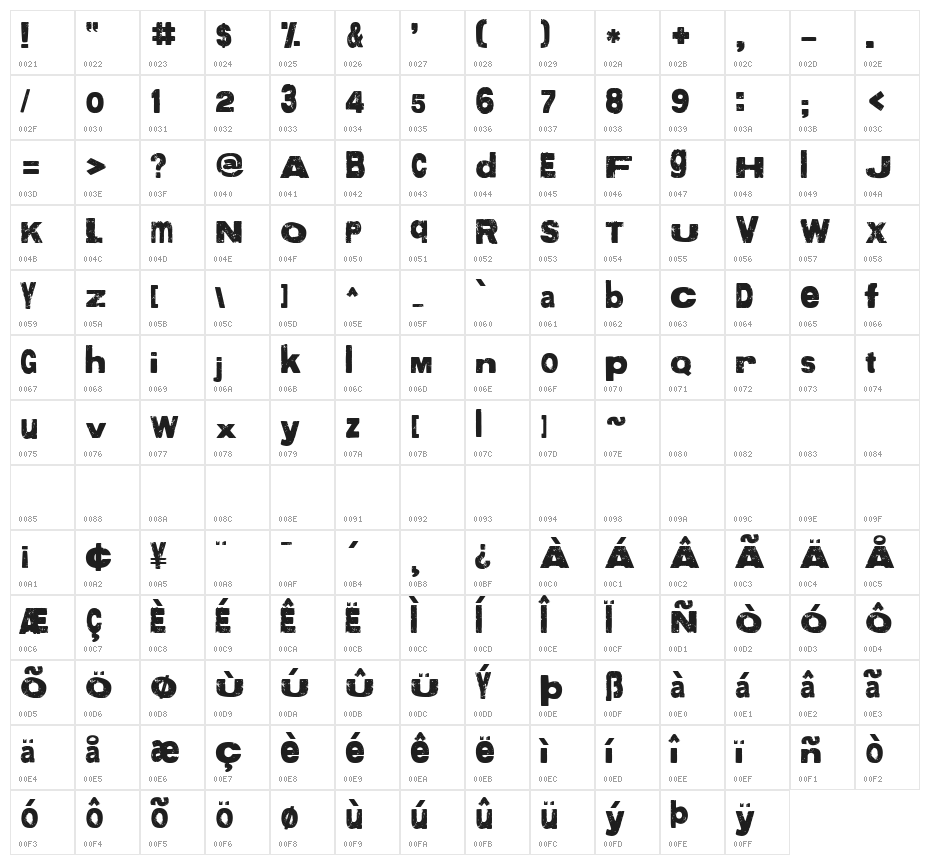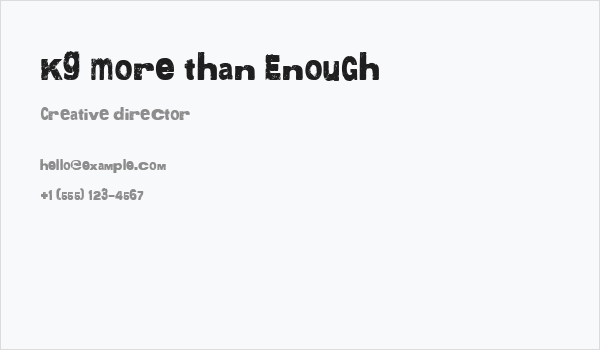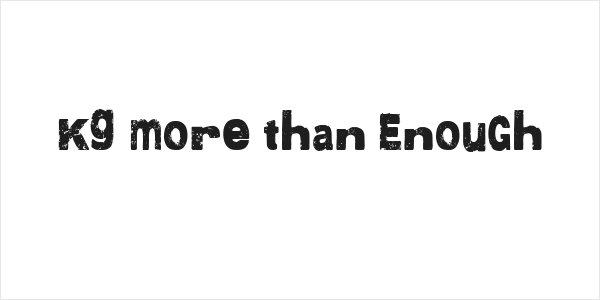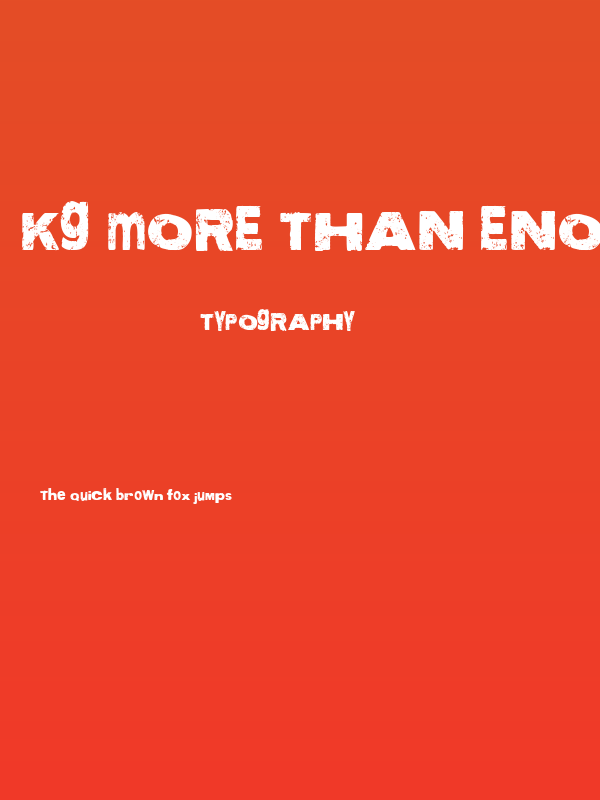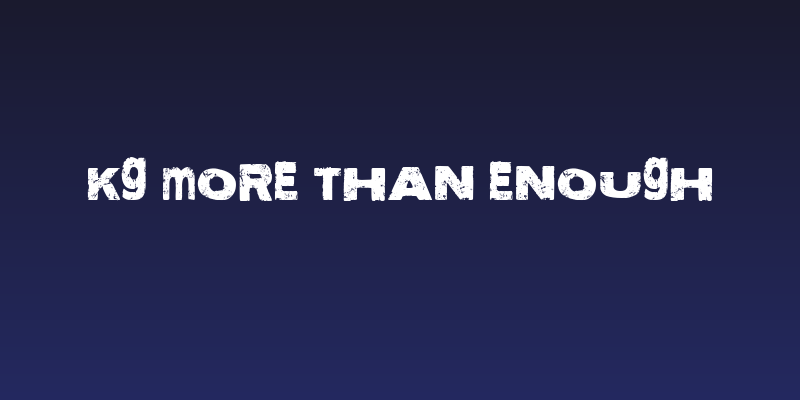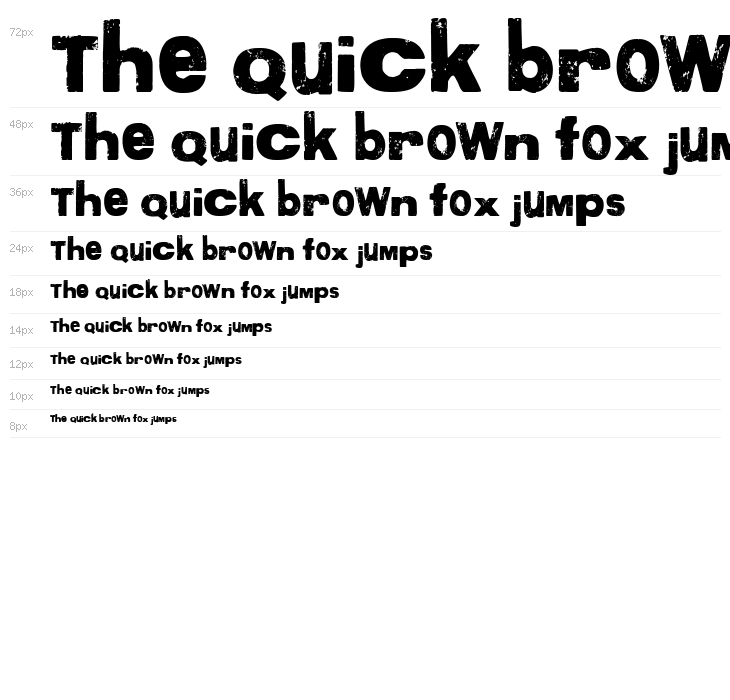
KG More than Enough Font
KG More than Enough Description
This font features a bold, distressed style with a textured appearance that gives it a rugged, vintage feel. The characters are bold and impactful, with a rough, worn-out texture that adds a sense of history and character. The uppercase and lowercase letters maintain a consistent style, with slightly irregular edges that enhance the distressed look. Numbers and special characters follow the same design, making them cohesive with the overall aesthetic. This font is perfect for projects that require a strong, eye-catching display with a touch of nostalgia.
| Proposed Projects | Ideal for posters, album covers, vintage-themed designs, and branding that requires a strong, retro aesthetic. |